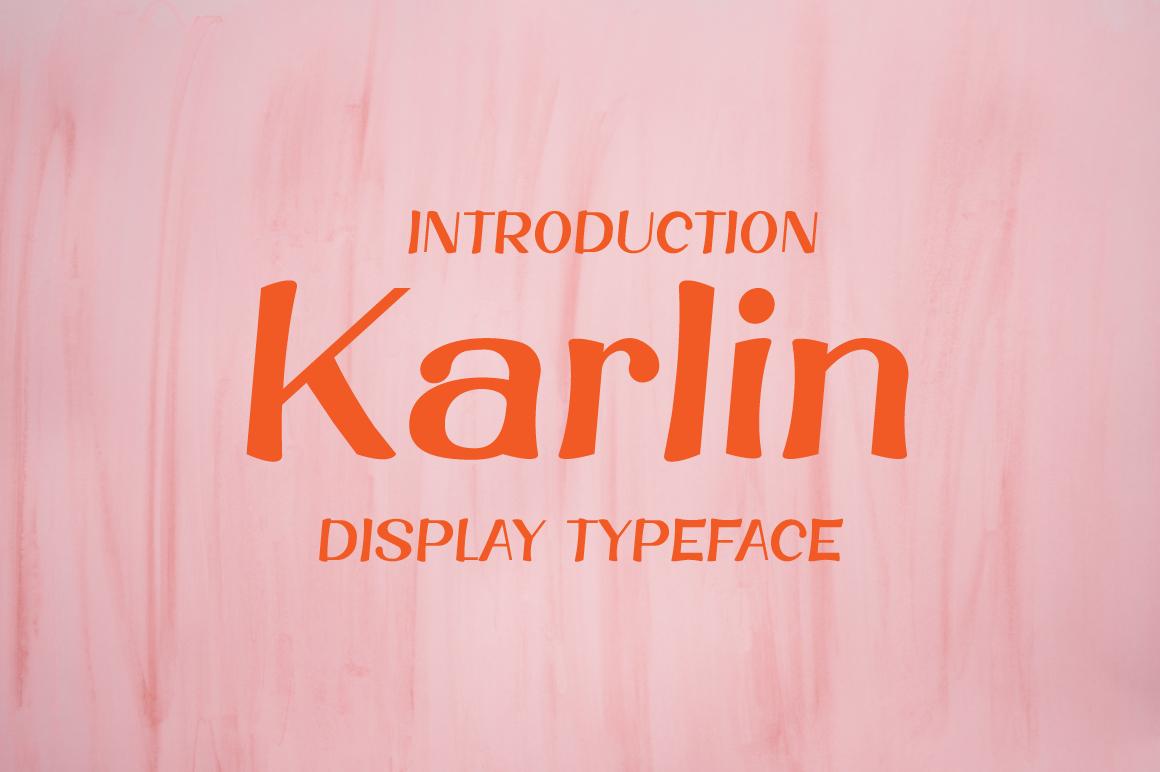
Karlin Font Description
Karlin is a fun and beautiful display font. Masterfully designed to become a true favorite, this font has the potential to bring each of your creative ideas to the highest level! It is perfect for headlines, logotype, apparels, invitations, branding, packaging, advertising and much more!